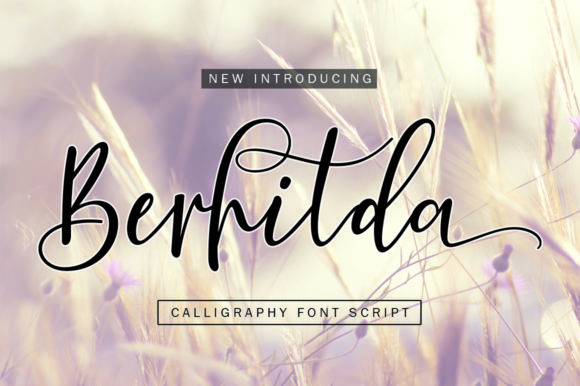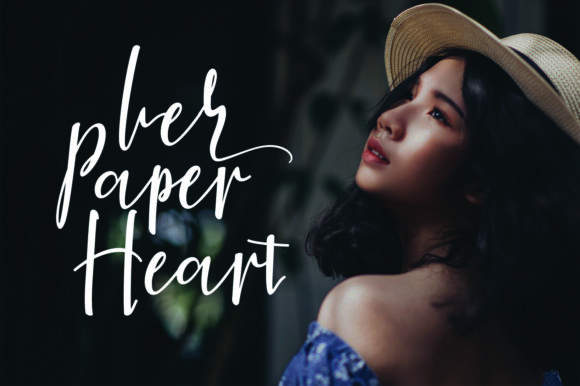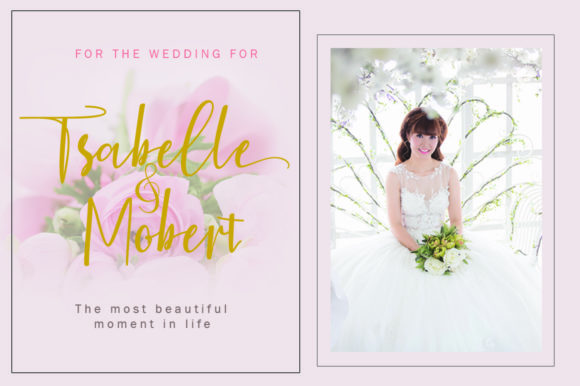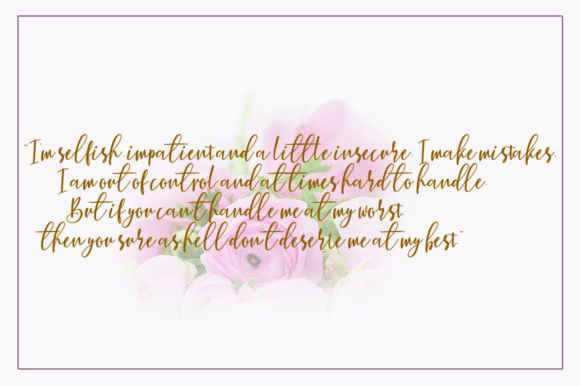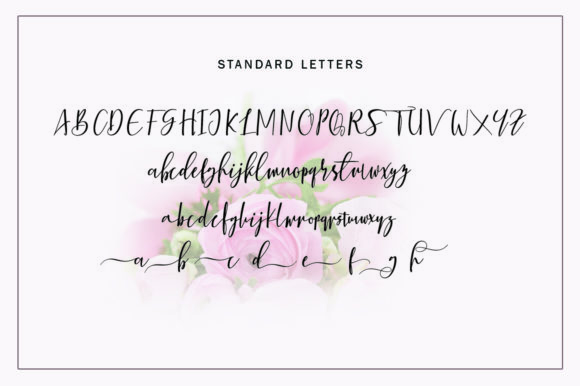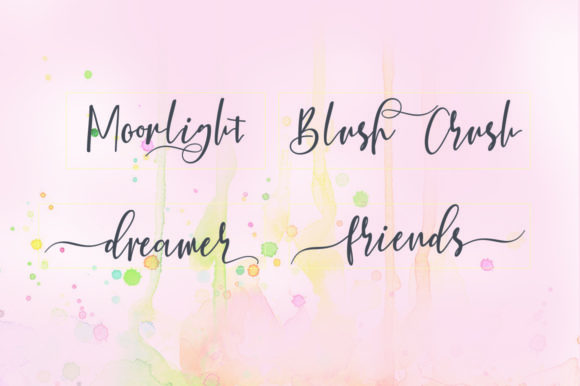
Berhilda Font
About Berhilda Font
The Berhilda is a modern calligraphy font. It has a natural writing style with an elegant and feminine feel.
It’s perfect for branding, wedding invites, magazines, mugs, business cards, quotes, posters, and much more!